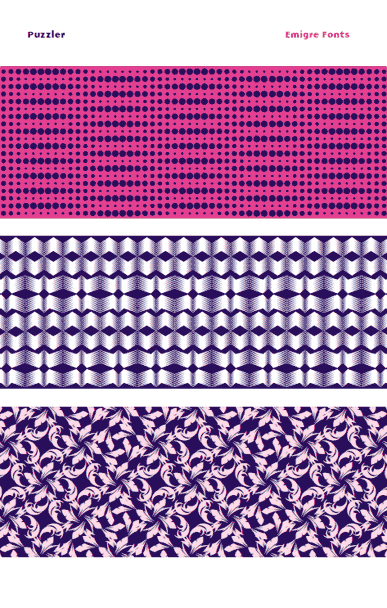
By Zuzana Licko
This text was first published in 2005 in the type specimen booklet for Puzzler.
With Puzzler, Zuzana Licko revisits and expands upon some of her earlier forays into decoration and geometric constructions of abstract elements.
Says Licko: "I've always been intrigued by patterns; the abstract dot compositions of blown-up halftone photographs, the interference patterns of superimposed grids known as moire, and the shadows of tree leaves on the sidewalk. These were some of the inspirations for the Puzzler patterns."
Some Puzzler elements started as dot grids of various sizes and frequencies, while others started as leaf or floral shapes that were arranged into interlocking compositions. In fact, many came about as happy accidents; some elements looked too random or uninteresting until their repetitions surprised her with unexpectedly fluid patterns.
The elements are arranged into three categories of fonts: Puzzler Halftone, Puzzler Geometric and Puzzler Floral. Each element is accessed through a letter on the keyboard, making it easy to repeat elements with precise scaling and positioning.
These examples show some of the patterns that can be composed with the Puzzler fonts; but the variety is endless.
Puzzler Haltone Coarse
Puzzler Haltone Fine
Puzzler Geometric
Puzzler Floral